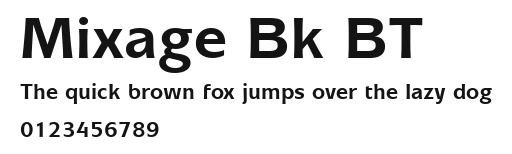
• Font Name: Mixage Bk BT
• Font ID: ITC Mixage Bold, Humanist 785
• Full Font Name: Mixage Bold BT
Mixage Bk BT.ttf is a modern, elegant sans-serif font designed for ultimate readability and visual harmony. Perfect for branding, headlines, web design, and print materials.